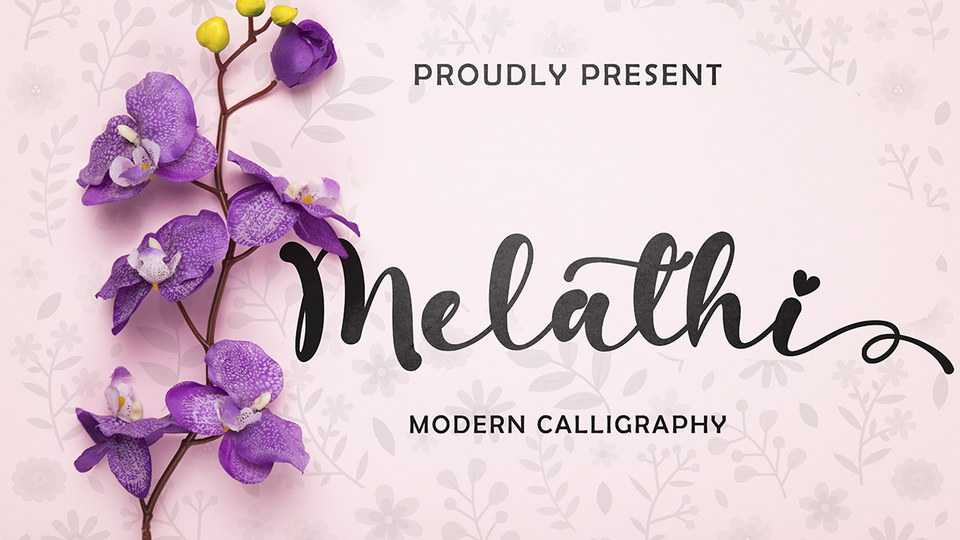
Download Melathi font, a calligraphy typeface that is very beautiful, simple, elegant and can be used for all your needs. Melathi is perfect for weddings, traveling, earth day, quotes, spring, summer, logos, branding, banners, posters and more.